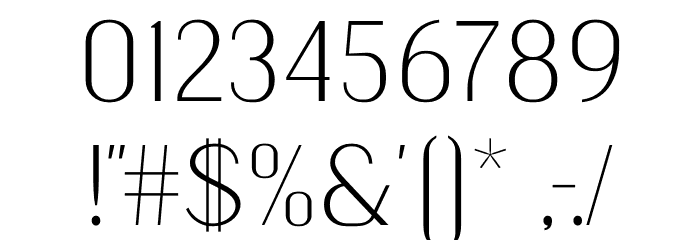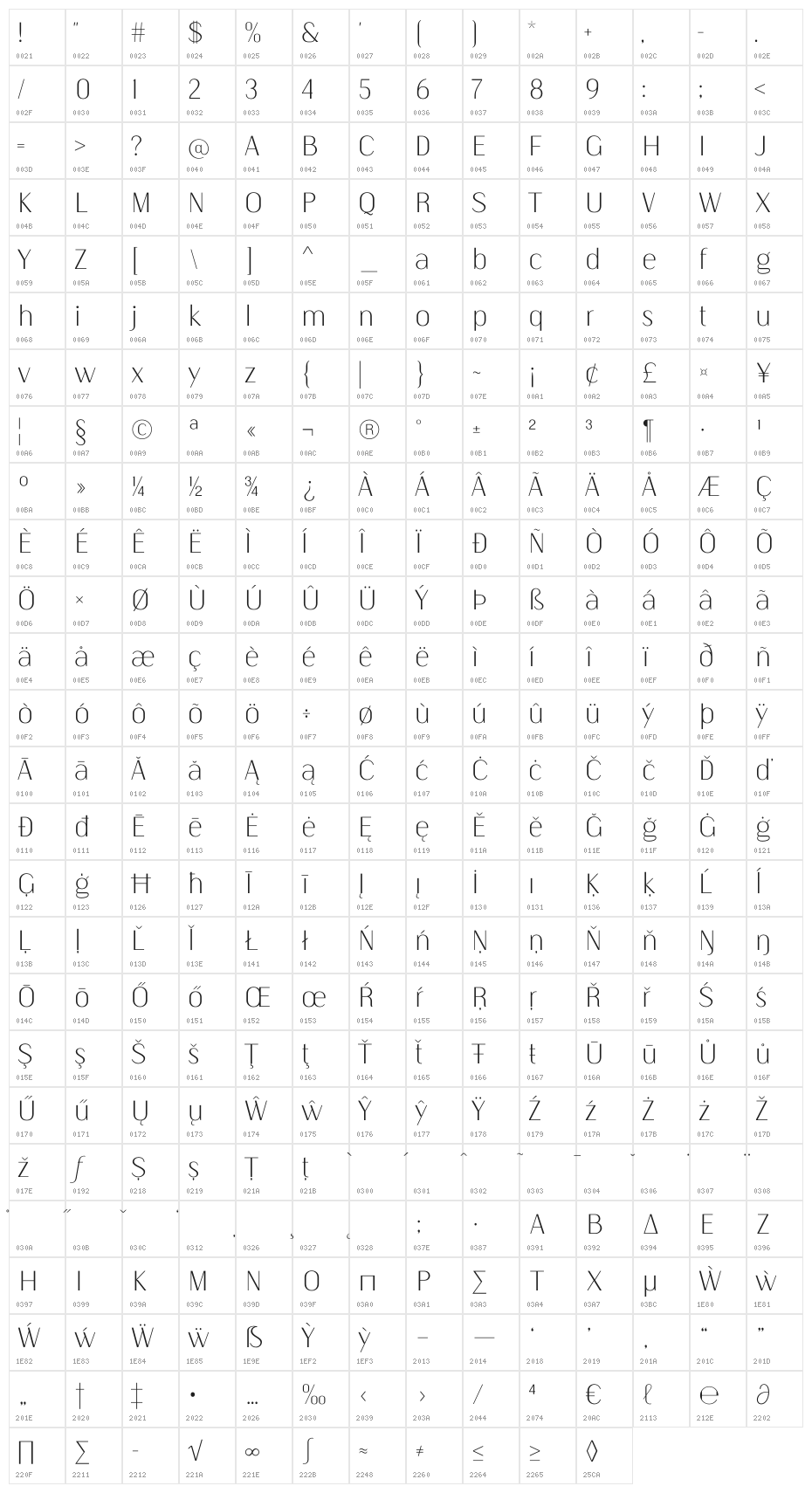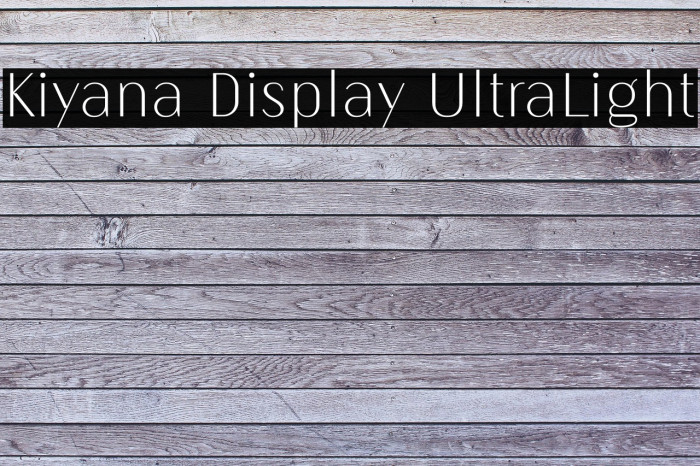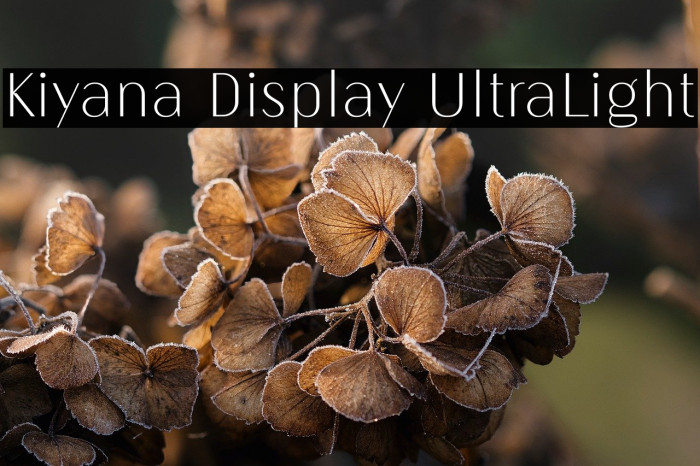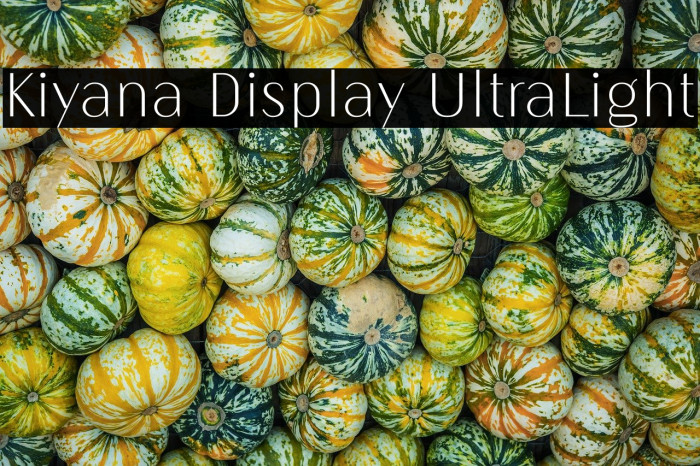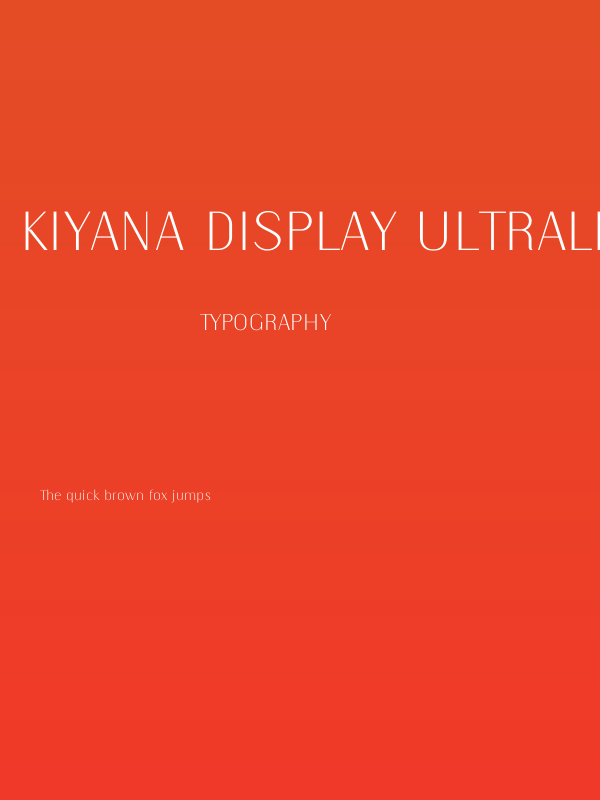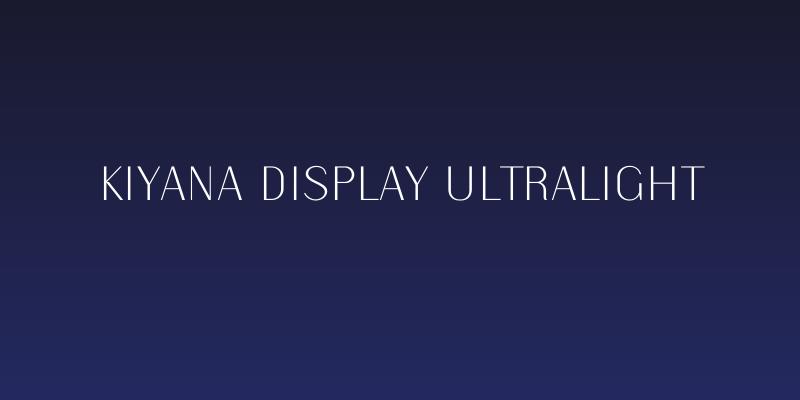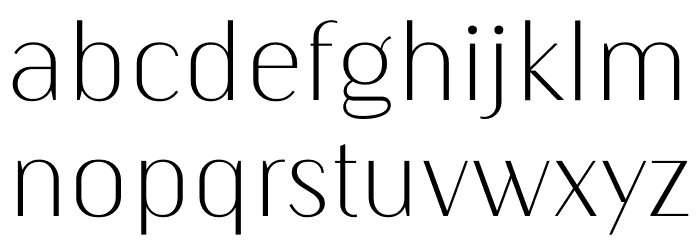
Kiyana Display UltraLight Font
Kiyana Display UltraLight Description
This font features a sleek and ultra-light design, characterized by its thin strokes and modern aesthetic. The uppercase and lowercase letters maintain a consistent height, contributing to a clean and uniform appearance. The numerals and special characters are designed with the same attention to detail, ensuring readability and elegance. The overall style is minimalistic, making it suitable for contemporary design projects. The font's simplicity and clarity make it versatile for various applications, from digital interfaces to print media.
| Proposed Projects | Ideal for branding, digital interfaces, editorial design, and minimalist posters. |